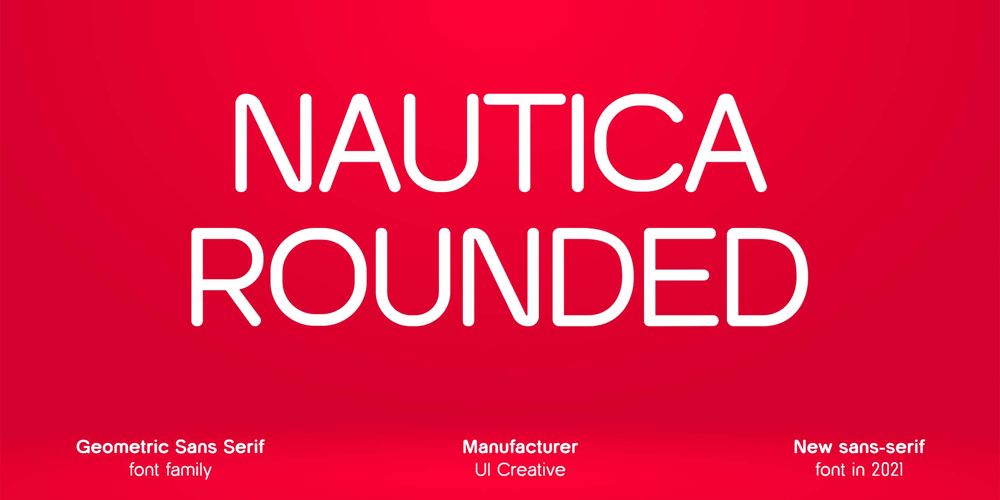
Nautica Rounded Font Family was designed by Hero and published by UICreative. Nautica Rounded contains 9 styles and family package options. Introducing our new product the name Nautica Rounded Geometric Sans Serif Family Font Family comes with 9 different weights. Modern Sans Serif font that beautiful classy, elegant, and modern. This font is perfectly suited for a wide variety of projects, such as signature, stationery, logo, wedding, typography quotes, magazine or book covers, website headers, clothing, branding, packaging design, and more. Also for fashion-related branding or editorial design and displays both masculine and feminine qualities.